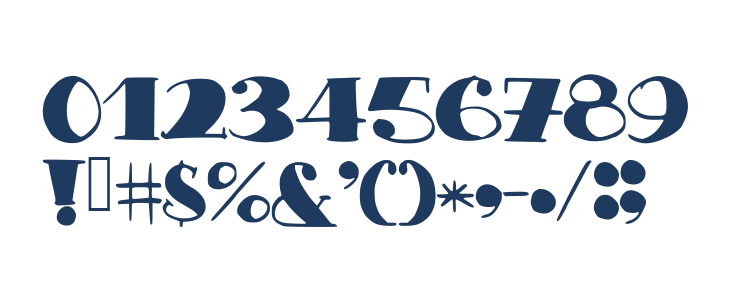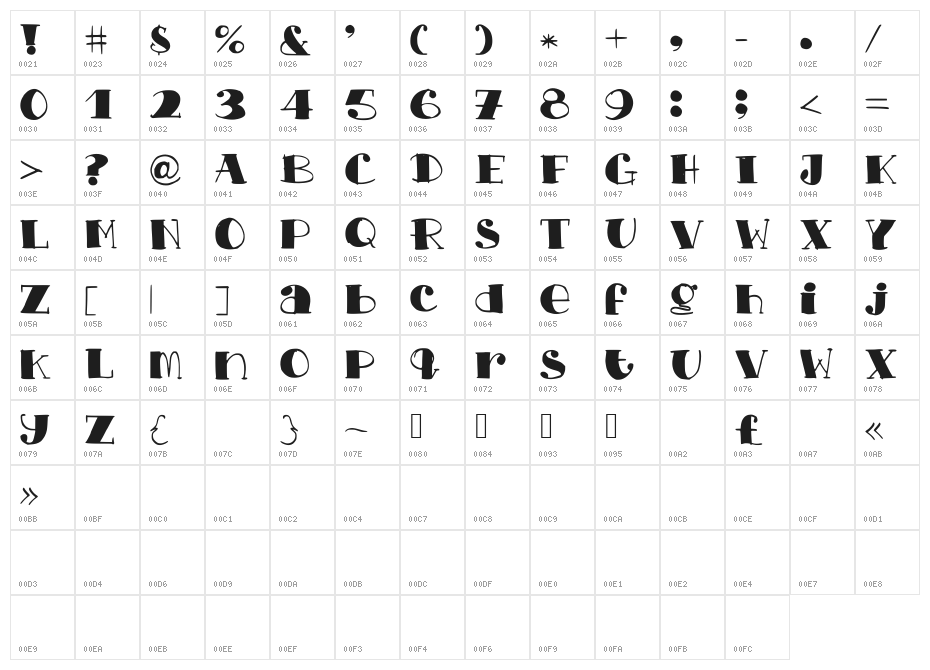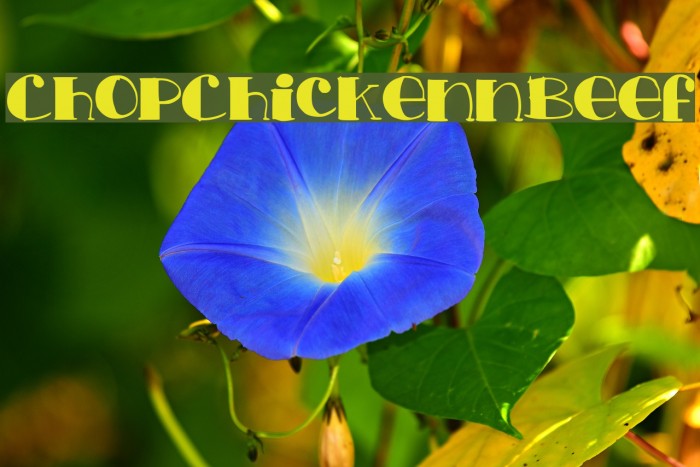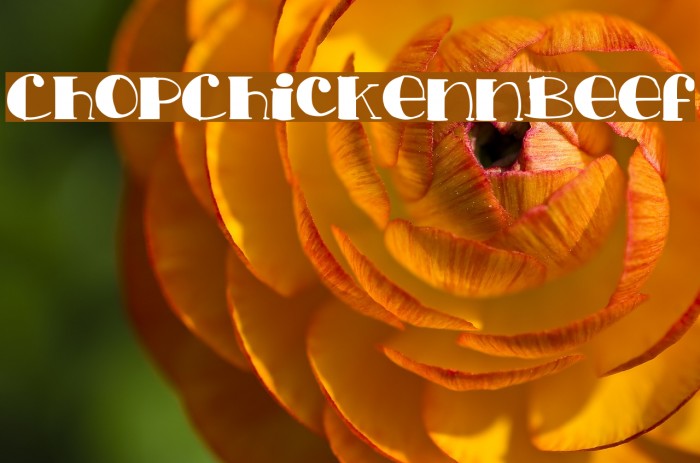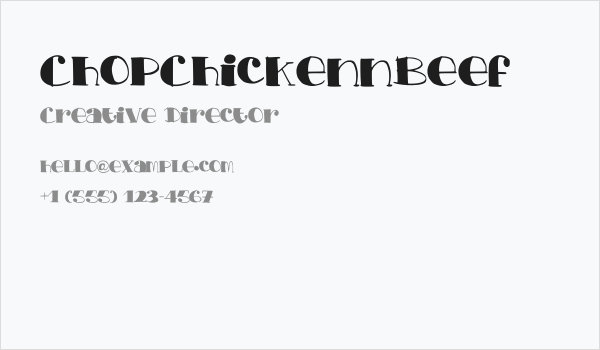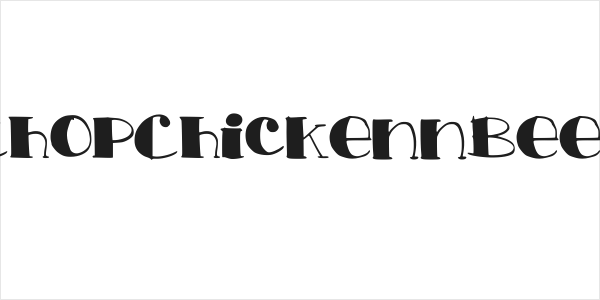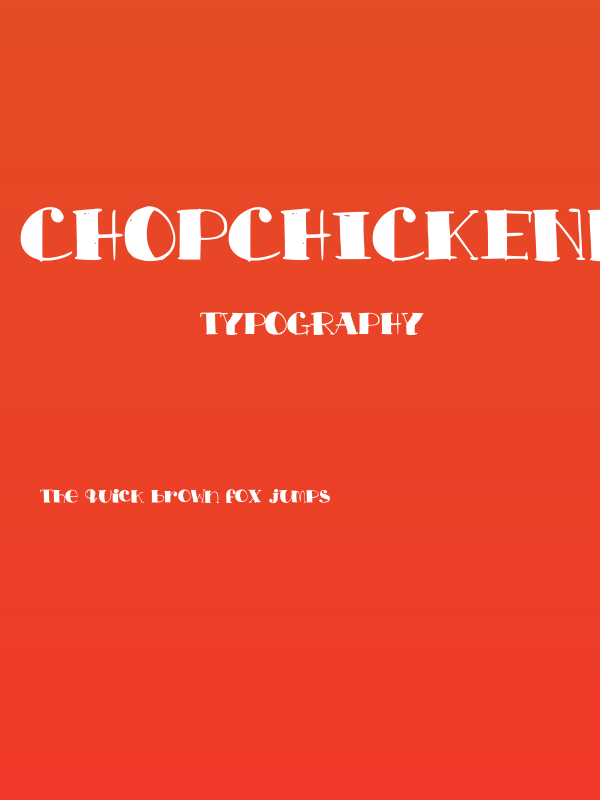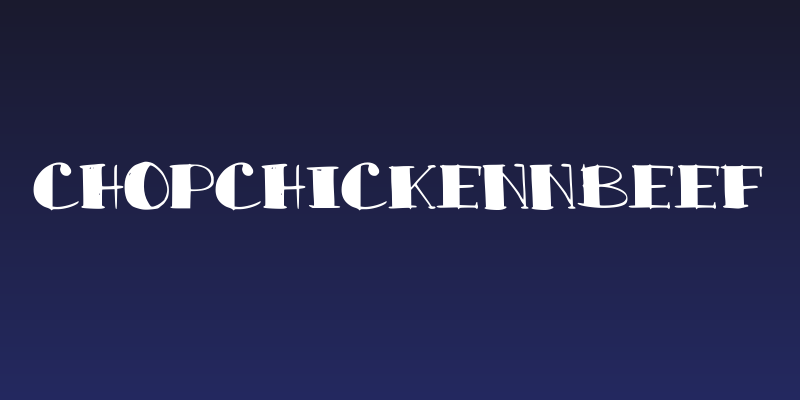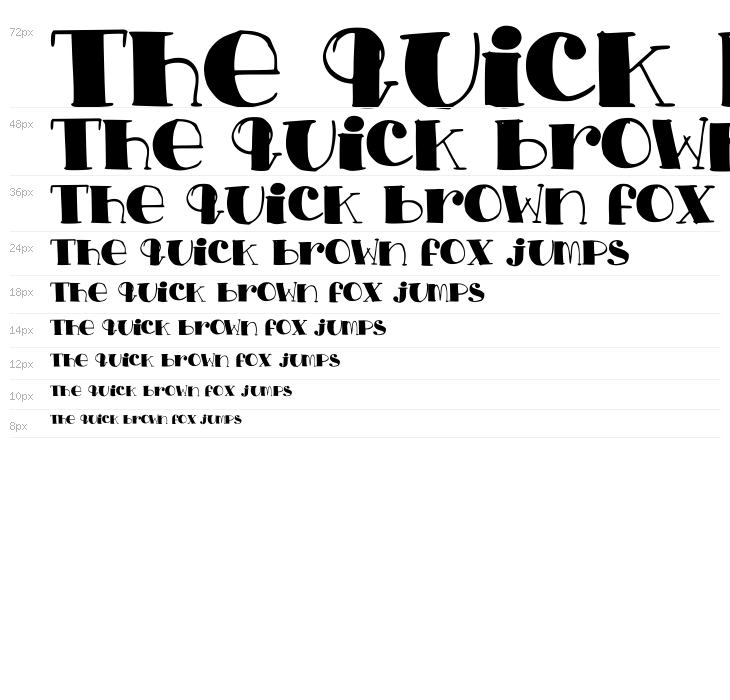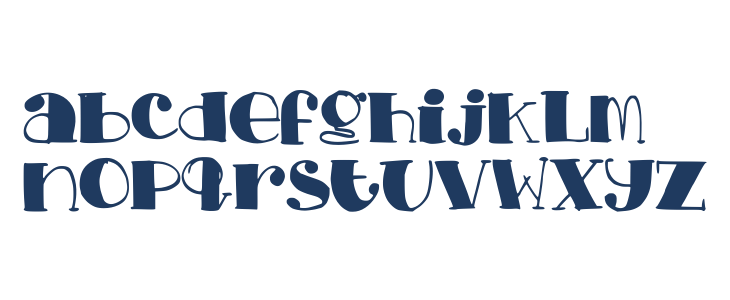
ChopChickennBeef Font
ChopChickennBeef Description
This font features a bold and playful design with a unique blend of thick and thin strokes, creating a whimsical and eye-catching appearance. The characters are highly stylized, with exaggerated curves and angles that give it a distinctive, artistic flair. The uppercase letters are particularly bold, while the lowercase letters maintain a consistent style with slightly more intricate details. The numbers and special characters follow the same playful theme, making this font ideal for creative projects that require a touch of fun and personality. Its decorative nature makes it stand out, perfect for grabbing attention.
| Proposed Projects | Ideal for posters, children's books, playful branding, and creative advertising campaigns. |